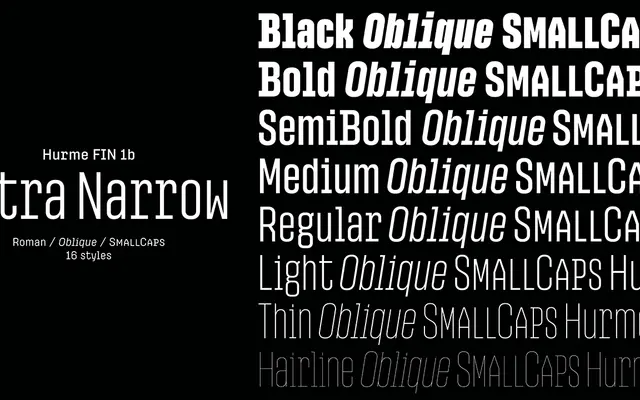
Hurme FIN 1b Extra Narrow
An extra narrow cut of Hurme FIN 1b, a monolinear grotesque with angular, monospace-influenced characters and horizontal stroke terminals across eight weights.
Hurme FIN 1b Extra Narrow is one of nine width variants in the FIN 1b family, which itself sits between the more conventional FIN 1a grotesque and the FIN Mono monospaced range. The 1b variant introduces angular, slab-serif-inflected characters as defaults, with the full grotesque character set accessible via OpenType features. Sixteen styles covering eight weights from Hairline to Black are provided, each with an optically adjusted oblique, and purchasing FIN 1b includes the corresponding FIN 1a weights at no extra cost.
A monolinear sans-serif with horizontal stroke terminals and monospace-inspired angular characters; the 1b variant sits between a grotesque and a monospaced design, making it closest to a grotesque subcategory with slab-serif and monospace influences.